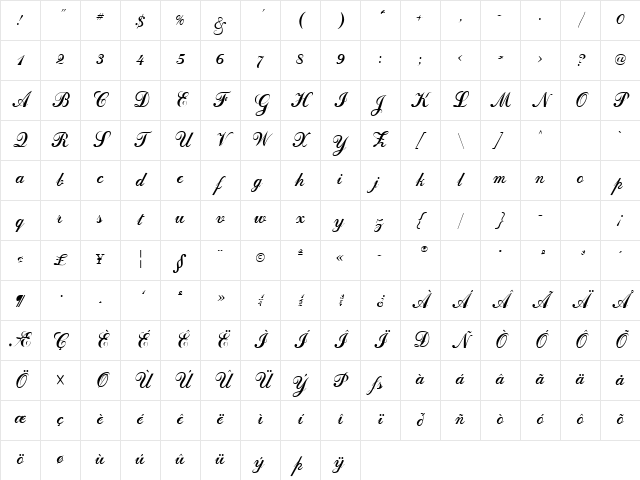
CoventryScriptFLF Regular Free Font
CoventryScriptFLF Regular
Design Context for CoventryScriptFLF
CoventryScriptFLF flows with the natural rhythm of handwritten lettering, making it ideal for designs that call for warmth and personal expression.
Font Pairing: Combine CoventryScriptFLF with a simple geometric sans for maximum contrast - the tension between flowing curves and clean structure is a classic typographic pairing.
Pro Tip: Use CoventryScriptFLF for short runs of text - names, titles, or taglines. Extended body copy in script faces tires the eye quickly.